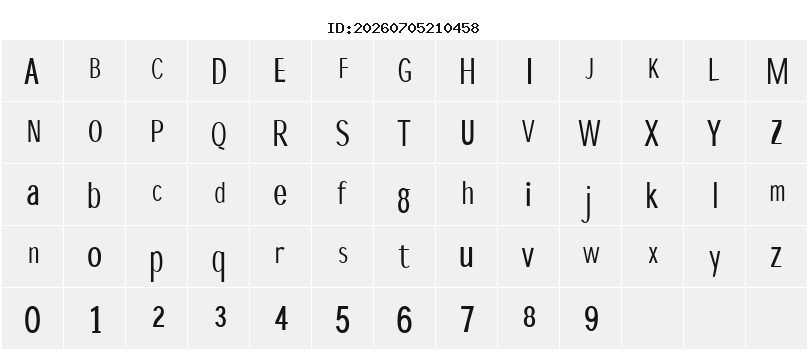
DisProporz Preview
• Font Name: DisProporz
• Full Font Name: DisProporz
About DisProporz.ttf
DisProporz.ttf is a modern, elegant sans-serif font designed for ultimate readability and visual harmony. Perfect for branding, headlines, web design, and print materials.